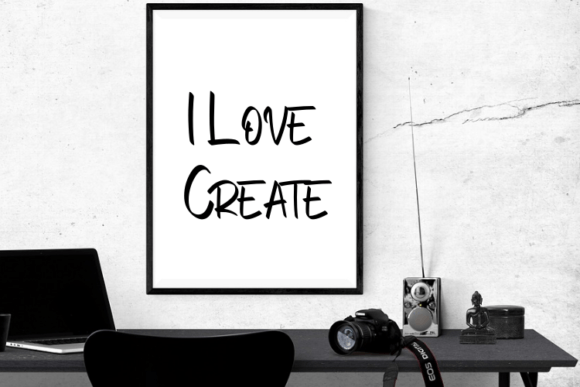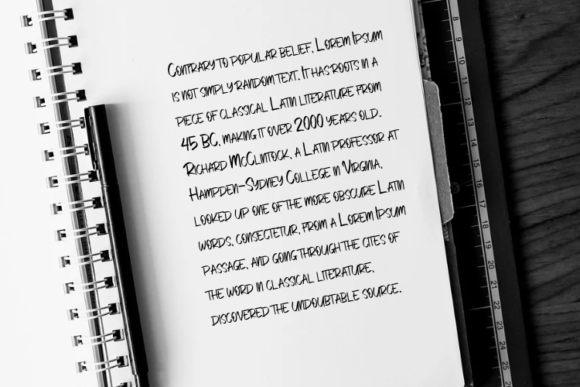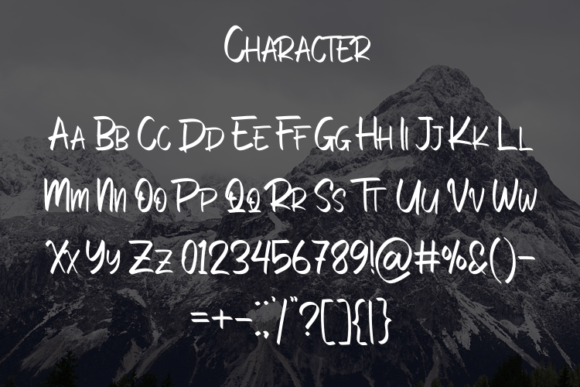
Introduction to Pasitive Font
Have you ever been working on a creative project, pouring your heart and soul into it, only to find the perfect design element is just out of reach? I know I have. For designers, finding the right font can be the difference between a mediocre and an outstanding design. That’s why I’m excited to introduce you to the Pasitive Font, a stunning handwritten typeface that’s sure to elevate your next project.
With its simple yet modern style, the Pasitive Font is perfect for adding a touch of personality to your design. Whether you’re creating a logo, designing a book cover, or crafting a magazine spread, this font is sure to make your project stand out. And the best part? The Pasitive Font is a free download, making it an invaluable resource for designers on a budget.
Pasitive Font – A Valuable Design Resource for Creative Projects
- High-quality font with a transparent background, ideal for designers working on creative projects.
- Unique Pasitive Font design features a modern and sleek aesthetic, perfect for contemporary designs.
Honest Review: Pasitive Font
As a designer, I’m always on the lookout for high-quality design resources to elevate my creative projects. Recently, I stumbled upon the Pasitive Font, and I’m excited to share my honest review with you.
Here are some aspects that work well: ✨ The Pasitive Font is incredibly versatile, suitable for a wide range of design projects, from logos to typography-based art. ✨ Its clean and modern design makes it a great addition to any design portfolio. ✨ The font also comes in a transparent background, making it easy to customize and blend with other design elements.
However, there are some limitations to consider: ⚠️ The font may not be suitable for large-scale text or headlines, as it can appear slightly fragile. ⚠️ Additionally, the font’s versatility can also make it feel a bit generic, depending on the project’s context.
Overall, I’m impressed with the Pasitive Font, and I think it’s a great addition to any designer’s toolkit. While it may have some limitations, its high-quality design and versatility make it a valuable resource for creative projects.
To get the most out of Pasitive Font, experiment with different font sizes, colors, and combinations. Use it in conjunction with other design elements, such as images or shapes, to create a visually appealing design.
Common Use Cases for Pasitive Font
Pasitive Font is ideal for a variety of creative projects, including logos, brochures, and social media graphics. Its high quality design and transparent background make it easy to use in a range of design applications.